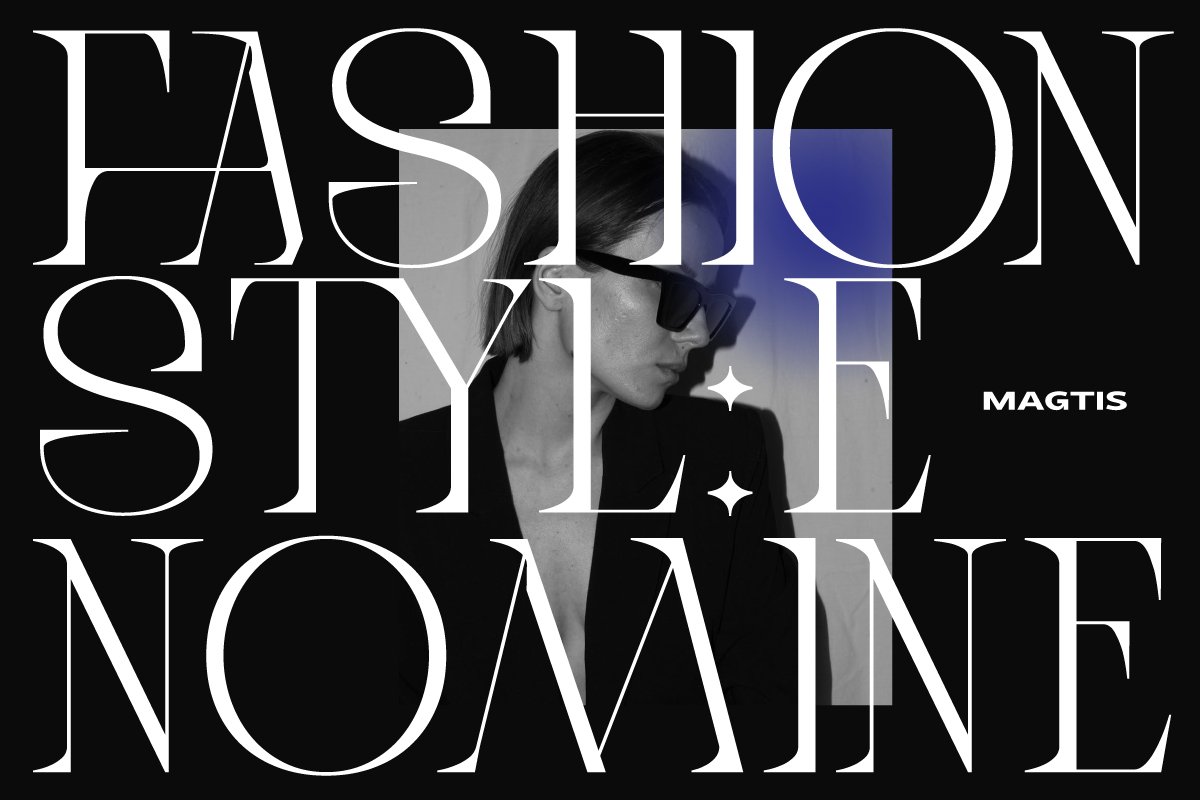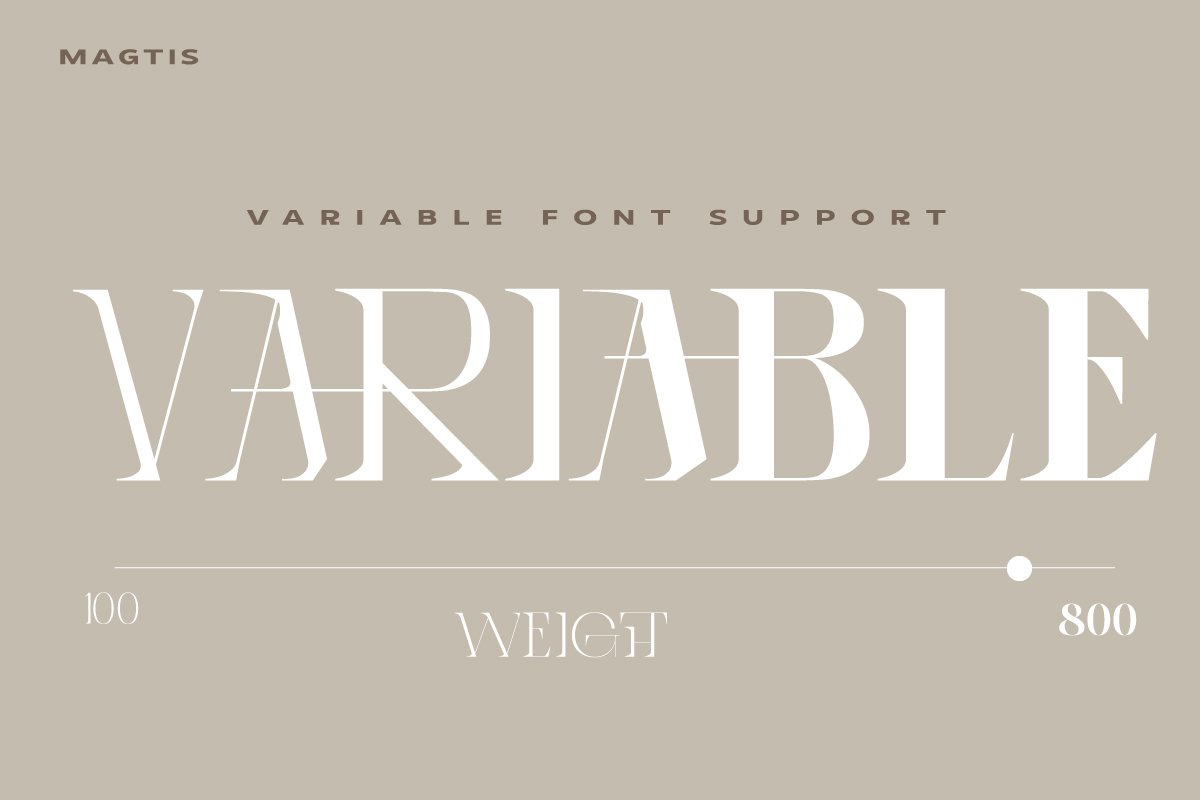
REGULAR PRICE IS $250 Now ONLY $25Magtis is a standout display font that is an ode to Contrast Serif typography in present day, It’s elaborate curves and unique shapes make it perfect for headings, logos & wedding invitations, Cigra is all class so if you want a stylish font that is guaranteed to draw the eye, then this is it!The alternative characters were divided into several features such as Stylistic Sets, Stylistic Alternates, Contextual Alternate, SWASH and Ligature